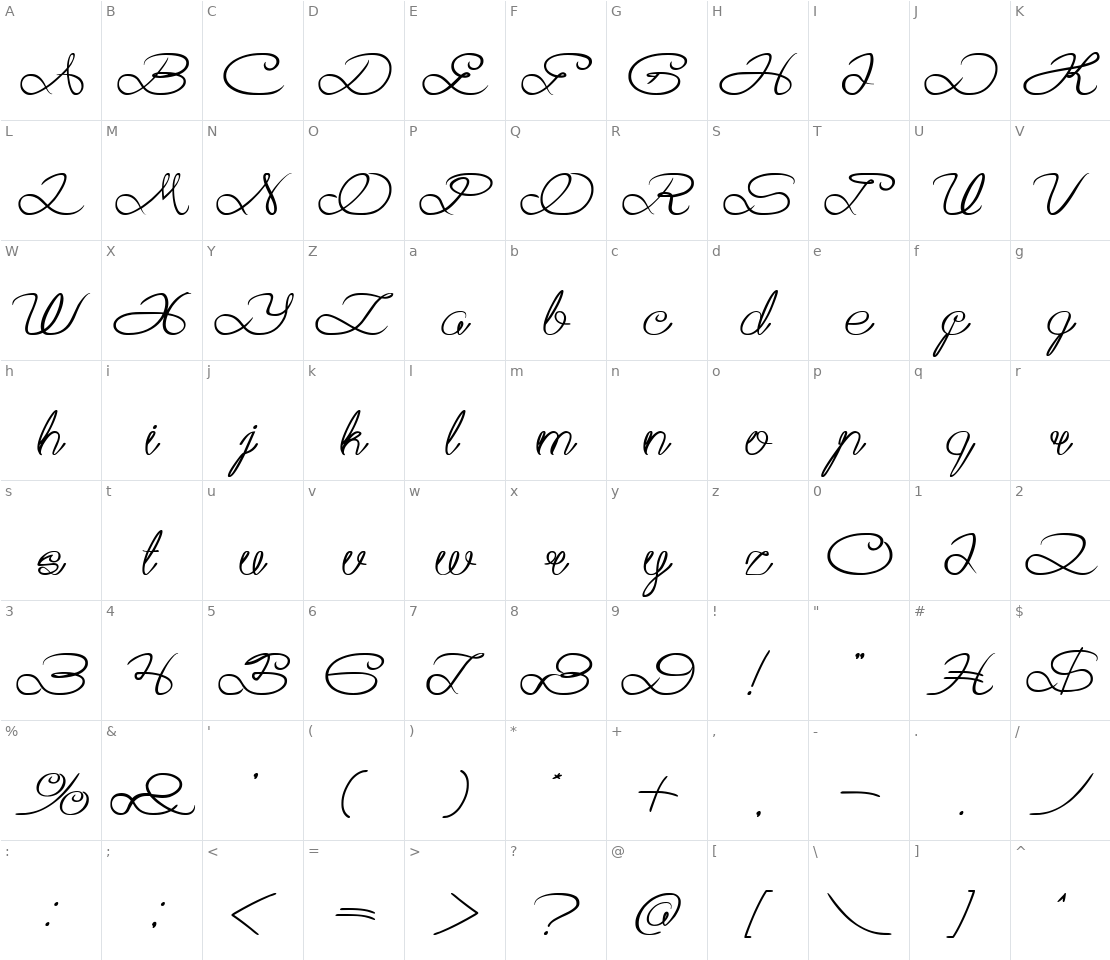
Aku Cinta Kamu
Aku Cinta Kamu, which translates to "I love you" in Indonesian, is a delicate cursive script from weknow with thin, flowing strokes that feel genuinely intimate and personal. The letterforms have a feminine elegance without being overly ornate, keeping things legible while still looking like someone's careful handwriting on a love letter. A natural choice for wedding invitations, romantic stationery, and branding that needs to feel soft and heartfelt.